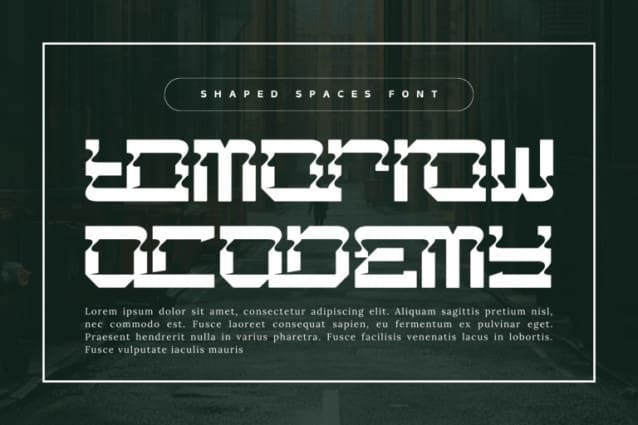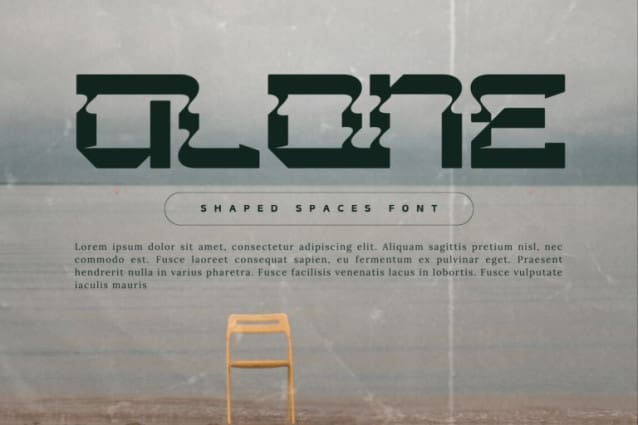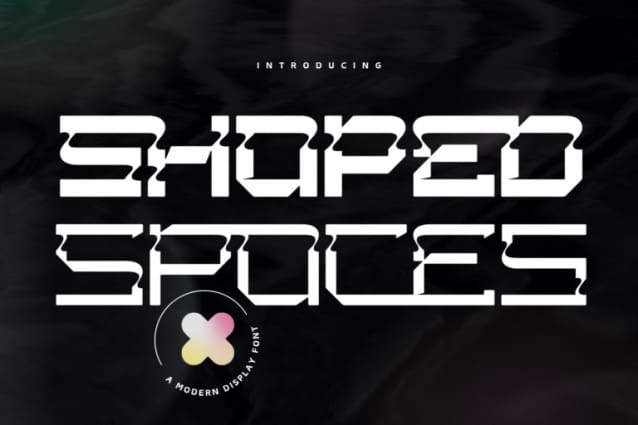
Shaped Spaces Font
Shaped Spaces Font is a cutting-edge cyber sci-fi futuristic font that embodies the essence of digital worlds and high-tech design. With sharp angles, sleek lines, and a bold presence, this font is perfect for projects that demand a modern, tech-savvy look. The sharp edges and unique letterforms emphasize innovation and forward-thinking design. It well-suited for technological, futuristic, robotic, or dystopian themes, such as posters, branding, or game designs. This font excels in creating visual impact but is better suited for titles or headlines.
Shaped Spaces was built with OpenType features and includes 100 ligatures, alternate, numbers, punctuation, and it also supports other languages.